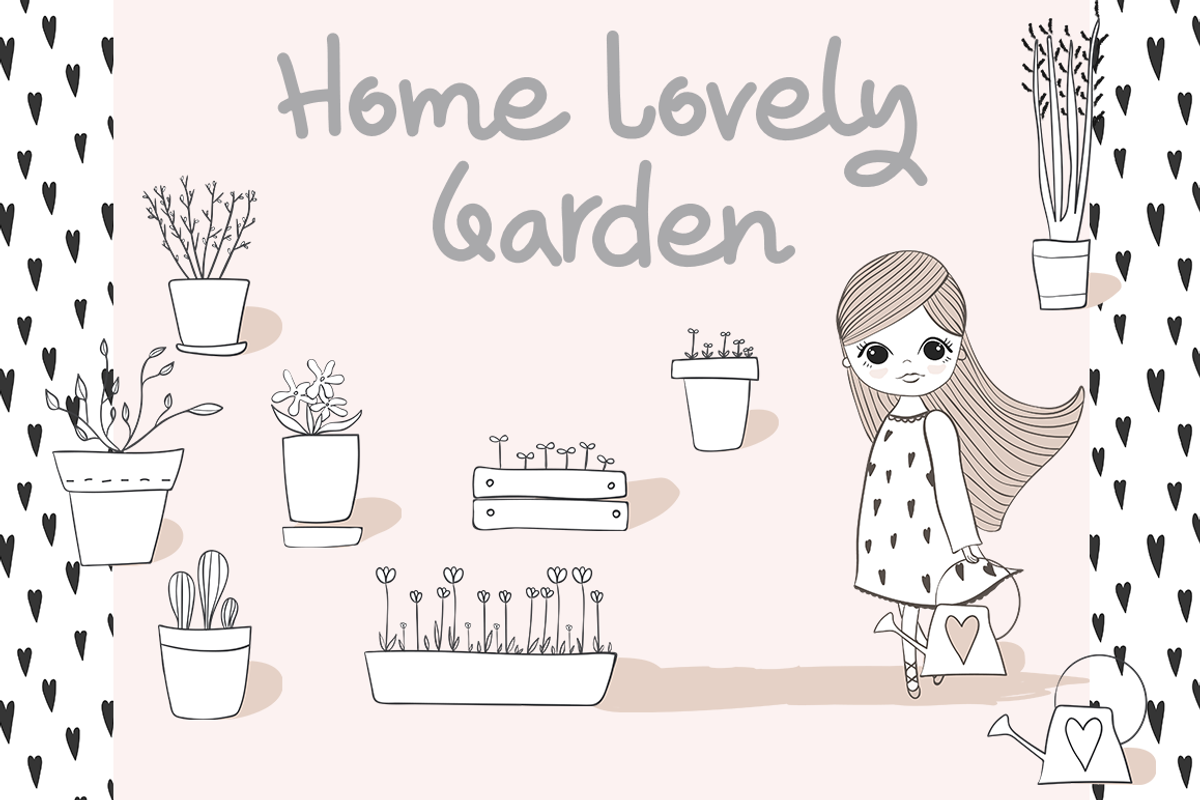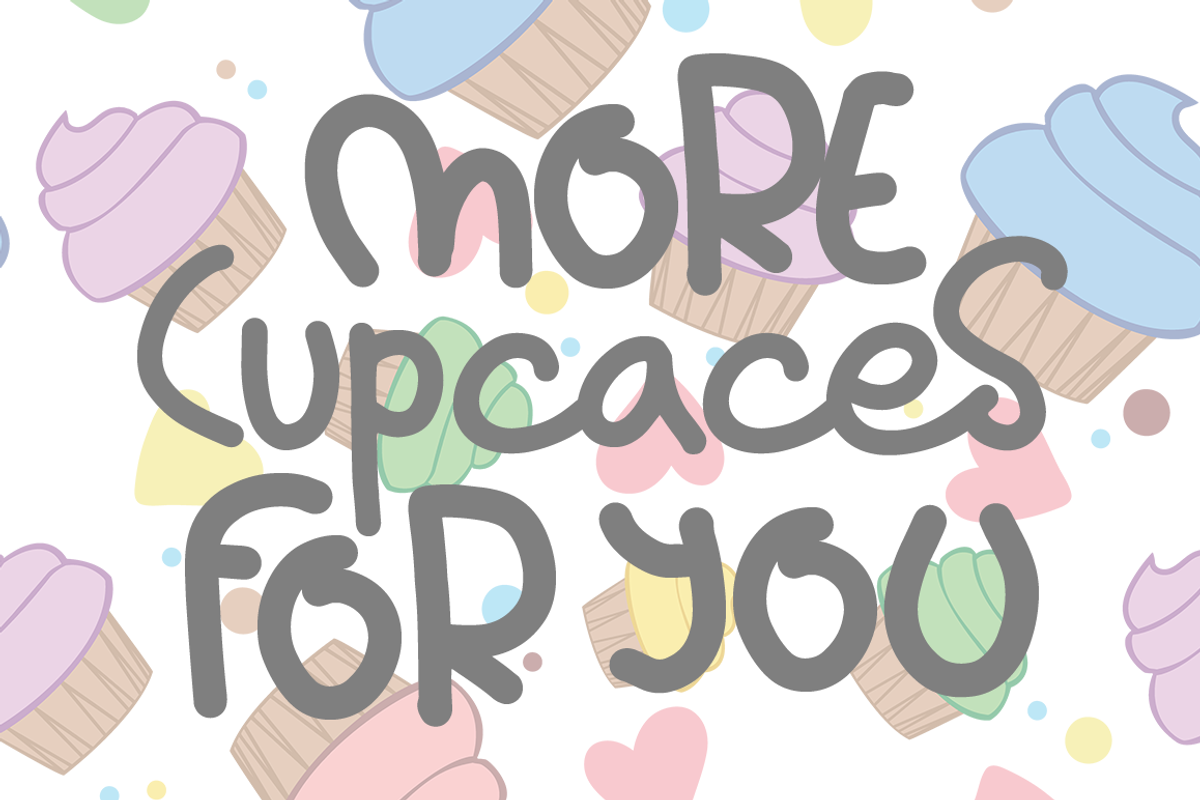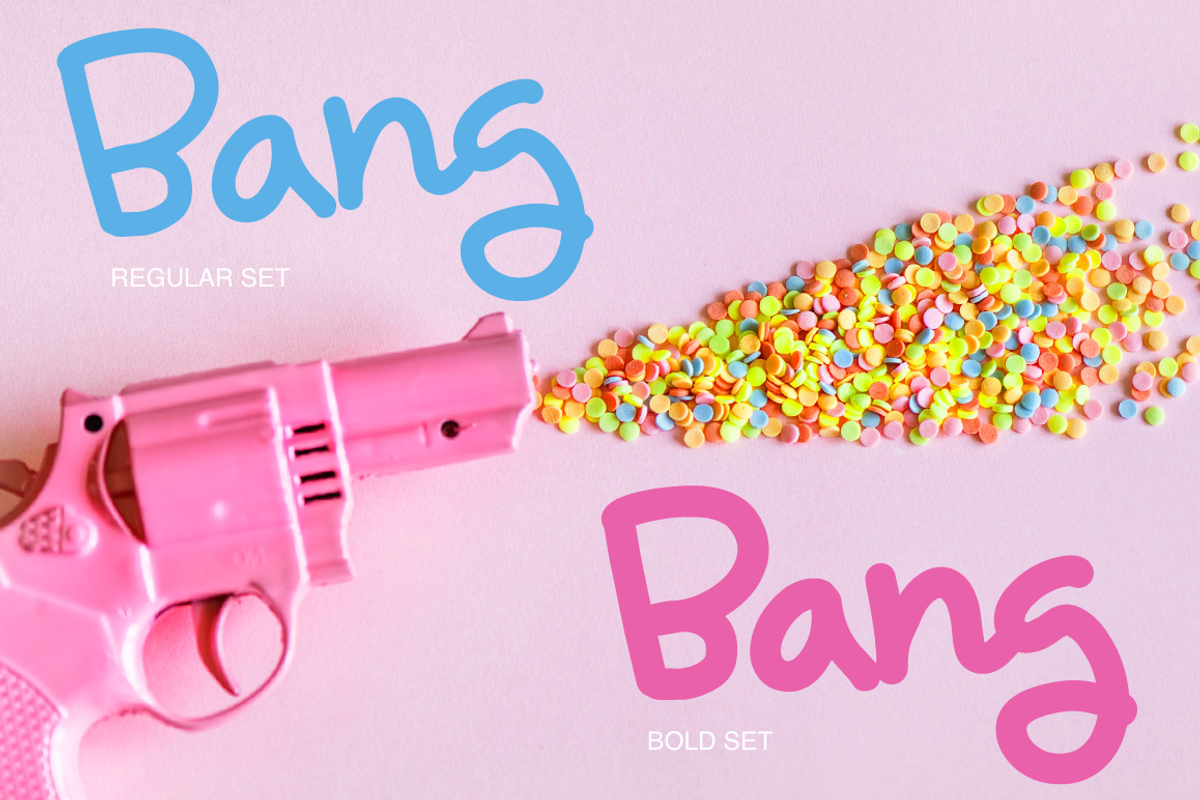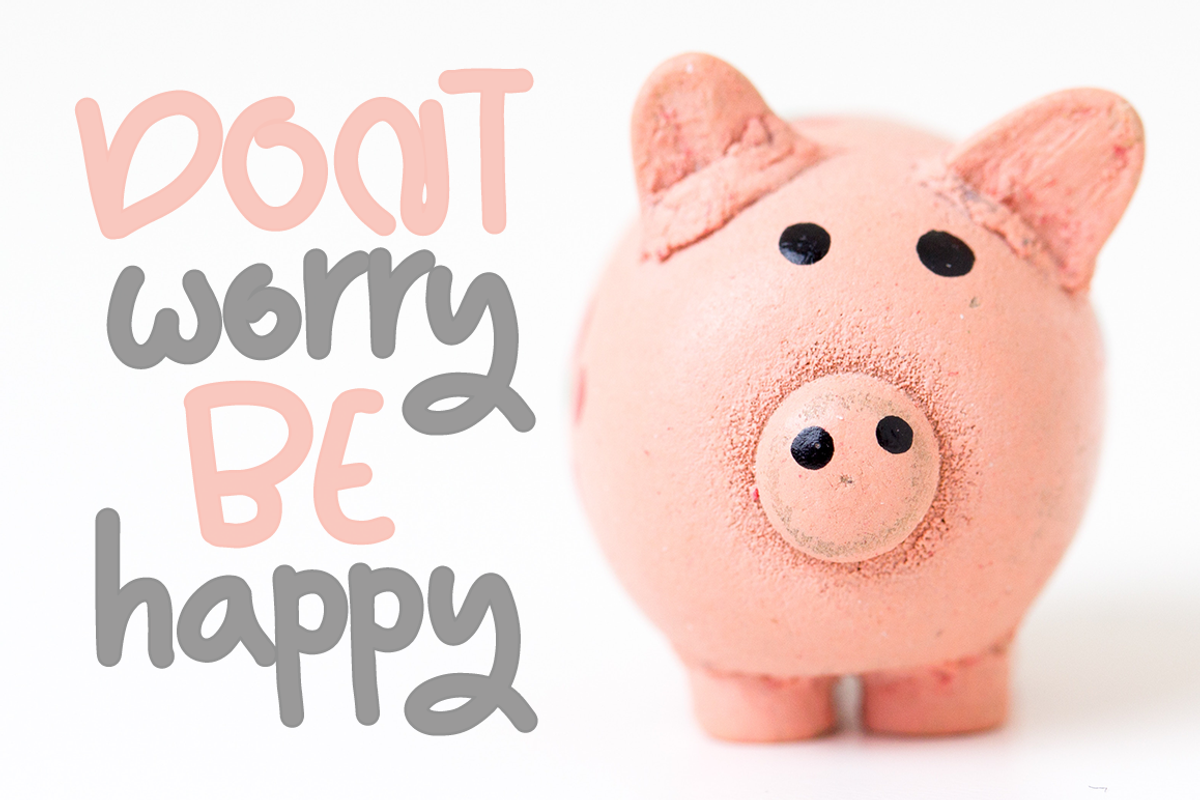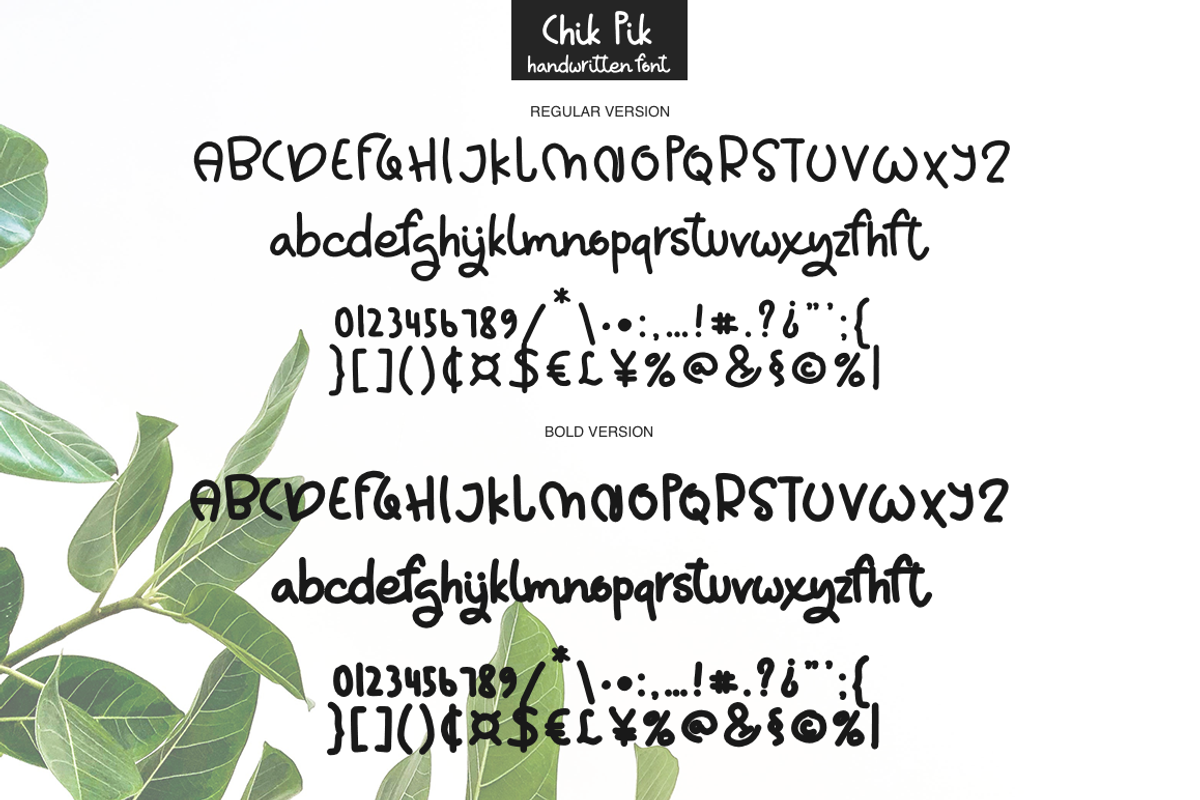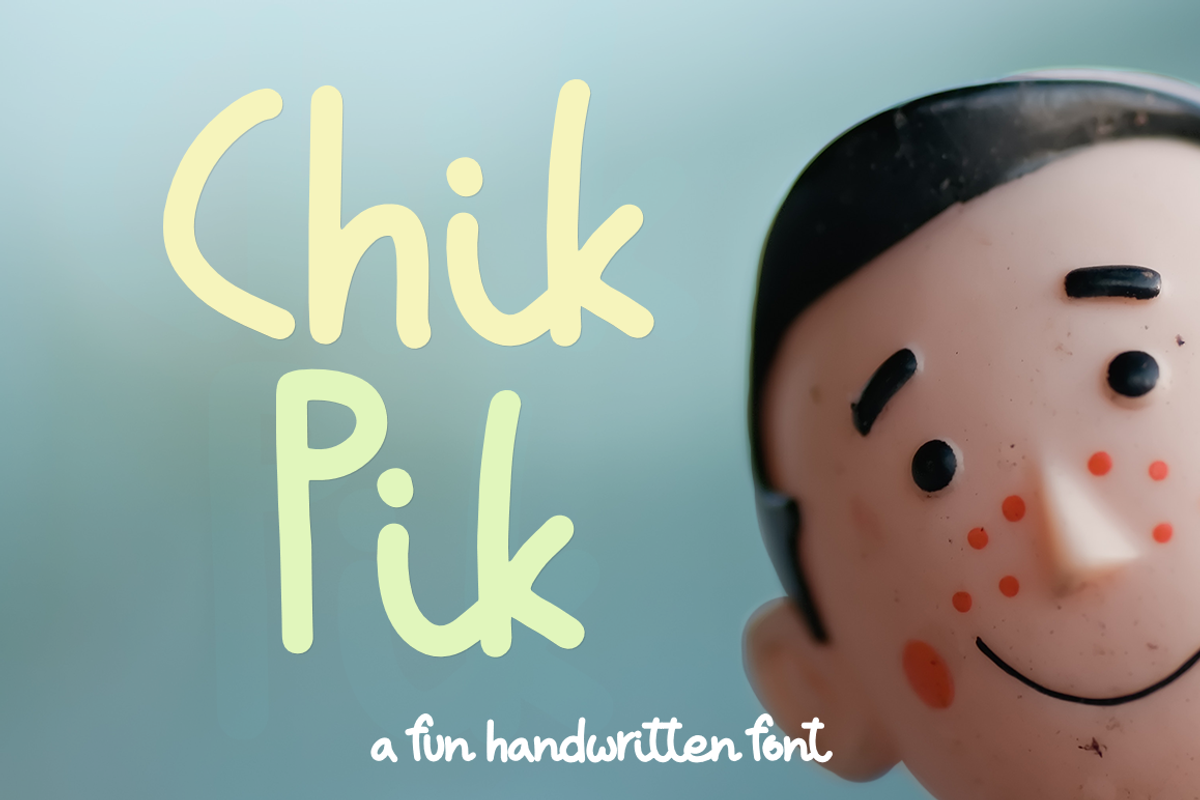
Chik Pik
Chik Pik script- a new fresh handmade calligraphy font.
This font is ideal for branding and decorate your any project, are perfect for wedding invitation or your blog. Also with their help, you can create a logo or beautiful frame for your home. Or just use for your small business, book covers, stationery, marketing, magazines and more.